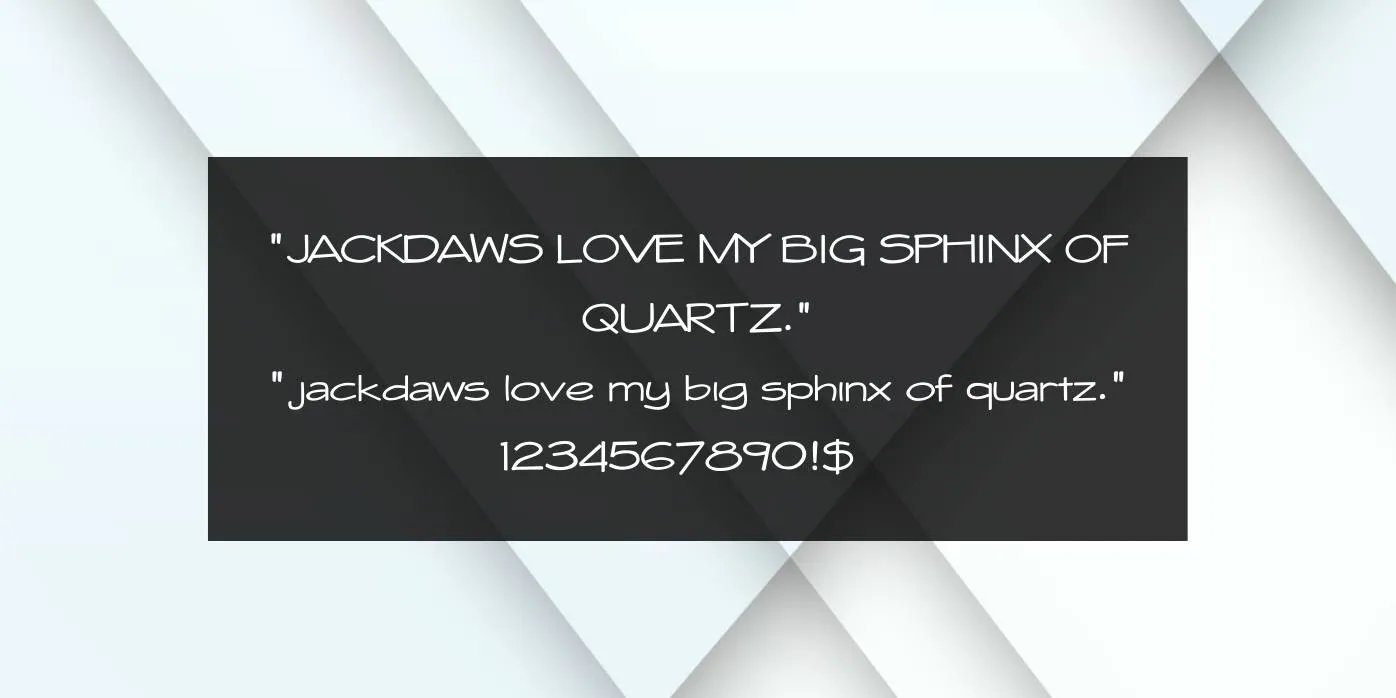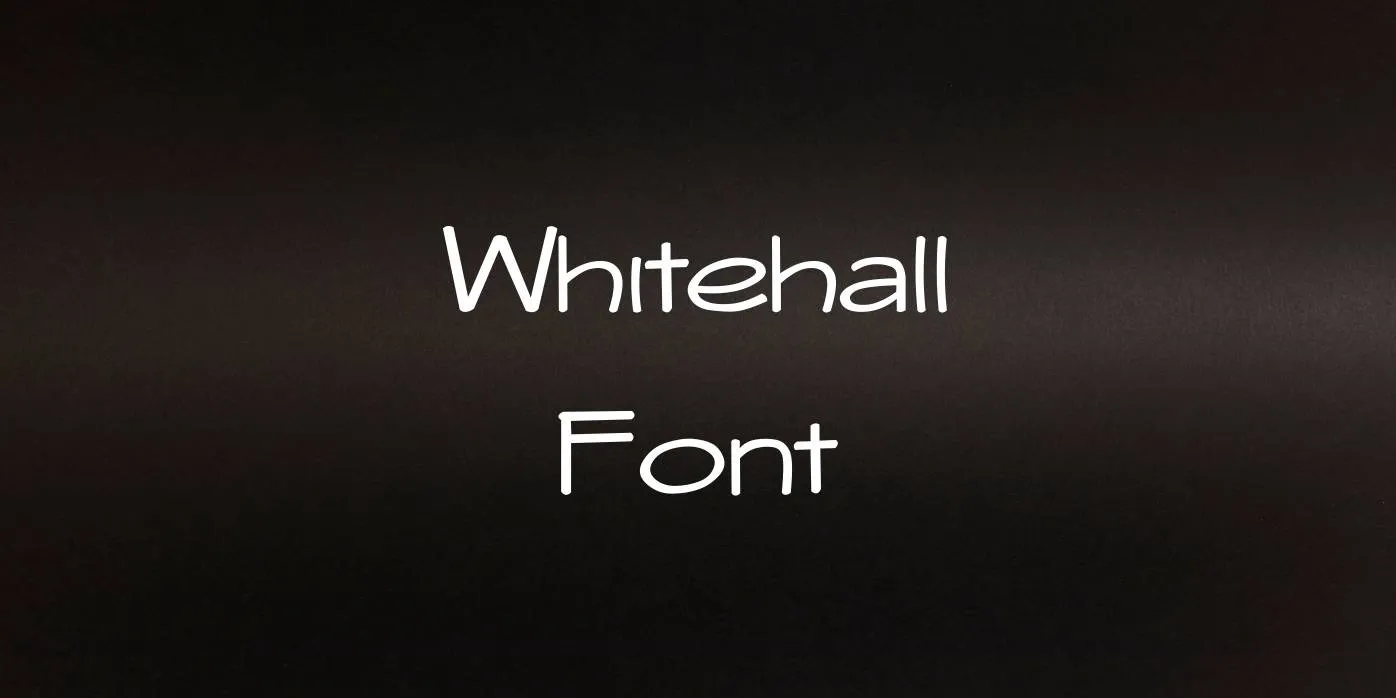
Whitehall Font
Today, we present Whitehall Font which belongs to the display family. Vic Fieger is the main creator of this family.  The typeface first appeared in 2004. Whitehall is an old-style display typeface with humanist tendencies. Its italics have a calligraphic feel to them.
The character set of Whitehall includes small caps, old-style figures, and fractions. It has a large x-height and wide proportions. The white space inside the letters is well balanced, giving the text a clean and airy feel. You can use it for CSS and HTML.
Whitehall works well for both body copy and headlines. It is a very versatile typeface and can be used in a variety of applications. One great facility of this typeface is its generator tool. The copy and paste function of this typeface is classic.